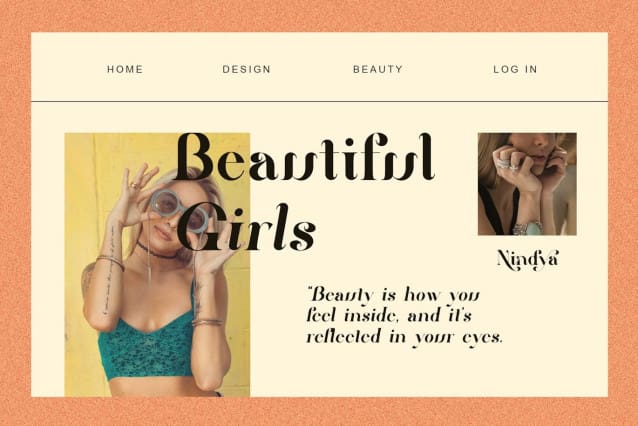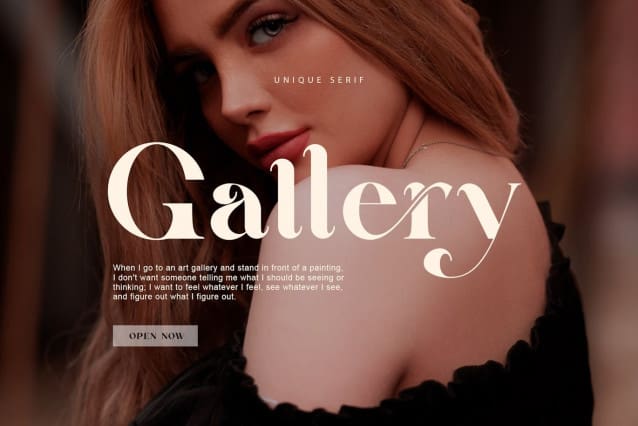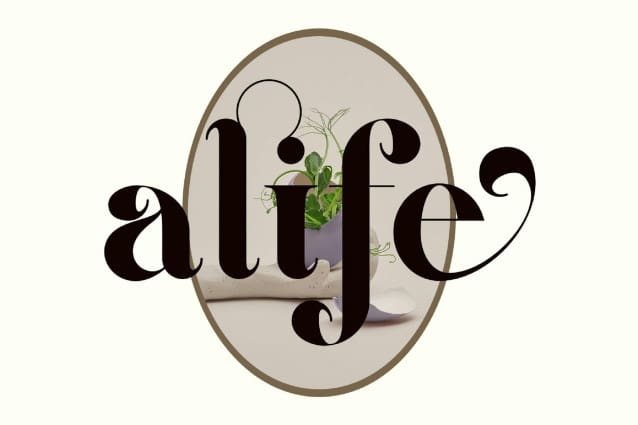
Alife Font
Alife Font is a stylish and elegant serif typeface. This font is both modern and nostalgic and is perfect for logos, magazines and social media. Already matched and ready to use together for your next design! For those of you who need a touch of elegance, class, chic and modernity for your designs, this font was created for you!
Alife Font was built with OpenType features and includes ligatures, numbers, punctuation and also supports other languages.